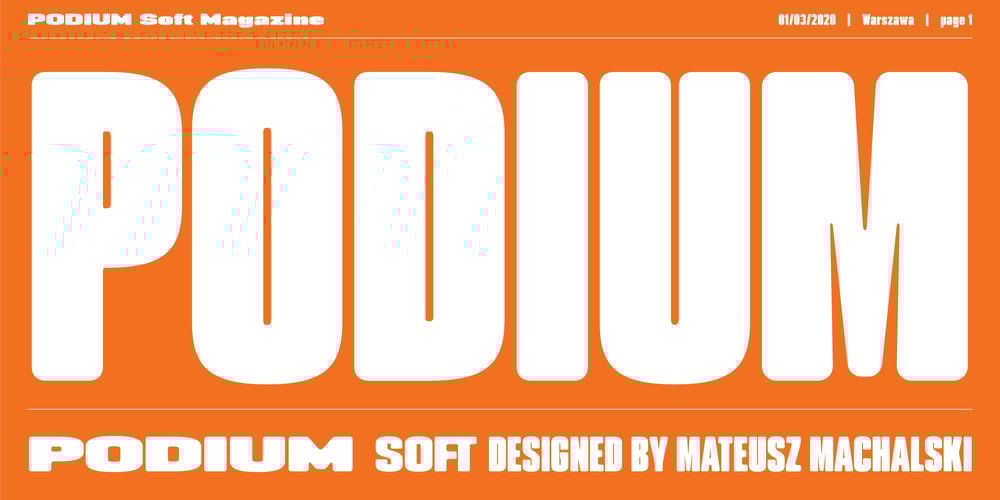
PODIUM Soft Font Family was designed by Mateusz Machalski and published by Machalski. PODIUM Soft contains 13 styles and family package options. PODIUM Soft is variations of PODIUM Sharp typeface designed in 2019. Family consist of 13 styles from ultra compressed to extra expanded. Main purpose of this project was idea to make hybrid between different modular and geometric woodtypes that I found in old polish specimens: Rex, Blok, Bacarat etc. Thanks to big range of different styles, PODIUM will be perfect choice for visual identities, posters and display usage.